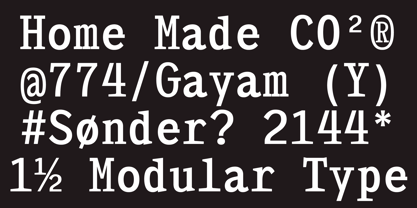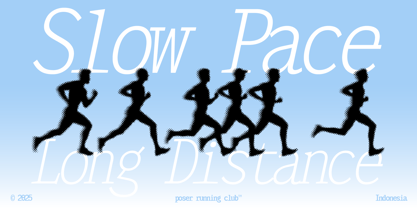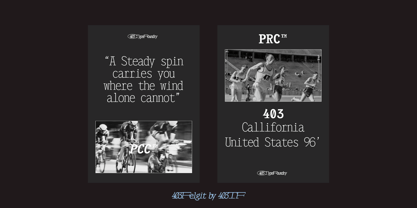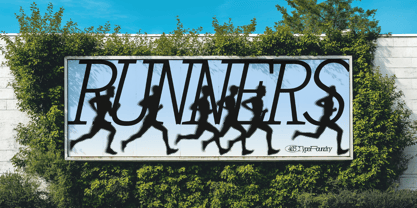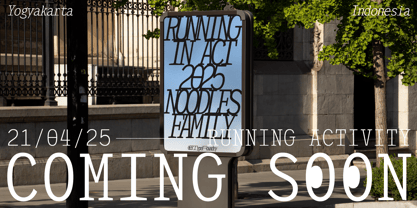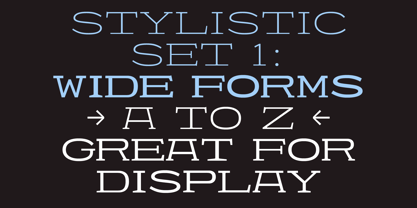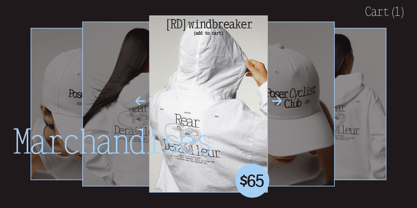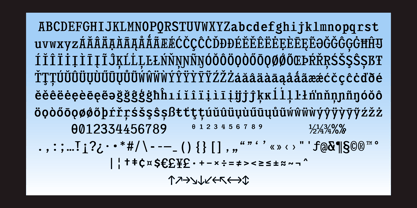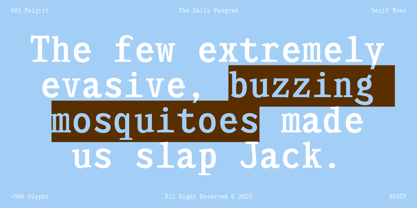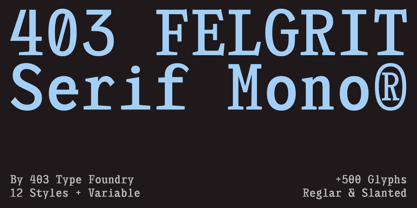
403 Felgrit
Die Schriftfamilie 403 Felgrit wurde von Umar Al Farouq, Jodi El Ghazi, Febri Riansah entworfen und von 403TF veröffentlicht. 403 Felgrit enthält 12 Stile und Familienpaketoptionen. Mehr über diese Familie
403 Felgrit Slab Serif Mono® Industrial Grit for Digital Interfaces
A monospaced slab serif with industrial backbone and creative edge—403 Felgrit brings structure, attitude, and rhythm to your design toolkit. A monospaced slab built for motion, resistance, and expression. With mechanical form and bold attitude, Felgrit brings order to chaos, clarity to noise, and presence to every pixel. Whether you're typesetting code, crafting identity work, or dropping a statement poster in the wild, this font delivers what designers wanted.
Born from the modular layouts, and long-distance pacing, perfect for UI design, code editors, brand identity, posters headline and high-impact layouts—Felgrit bridges utility and attitude with modern visual rhythm. Every glyph walks in step, from blocky punctuation to wide stylistic alternates. You get precision—without losing personality. This is the kind of font that talks back.
Designed for those who move between analog and digital, print and pavement, Felgrit is made for coders, runners, designers, punks, poets, and anyone with something real to say. Use it for apparel, campaigns, UI overlays, data visuals, club zines, maps, menus, or protest signs. Wherever clarity needs weight and structure needs voice—this font runs the distance.
Features
• Monospaced slab serif with bold character
• 12 styles including Regular, Slanted & Modular
• 500+ glyphs: Latin support, accents, symbols, arrows, math
• Wide-form stylistic set A–Z for display use
• Great for posters, UI, code, branding & print
• Sharp legibility at all sizes, strong visual rhythm
• Up to 270 Supported Latin Languages
This is more than a font—it’s your visual tempo. Bring consistency and edge to your next creative sprint with 403 Felgrit Slab Serif Mono®.
Who it's for: Creatives, developers, and designers who want structure with soul.